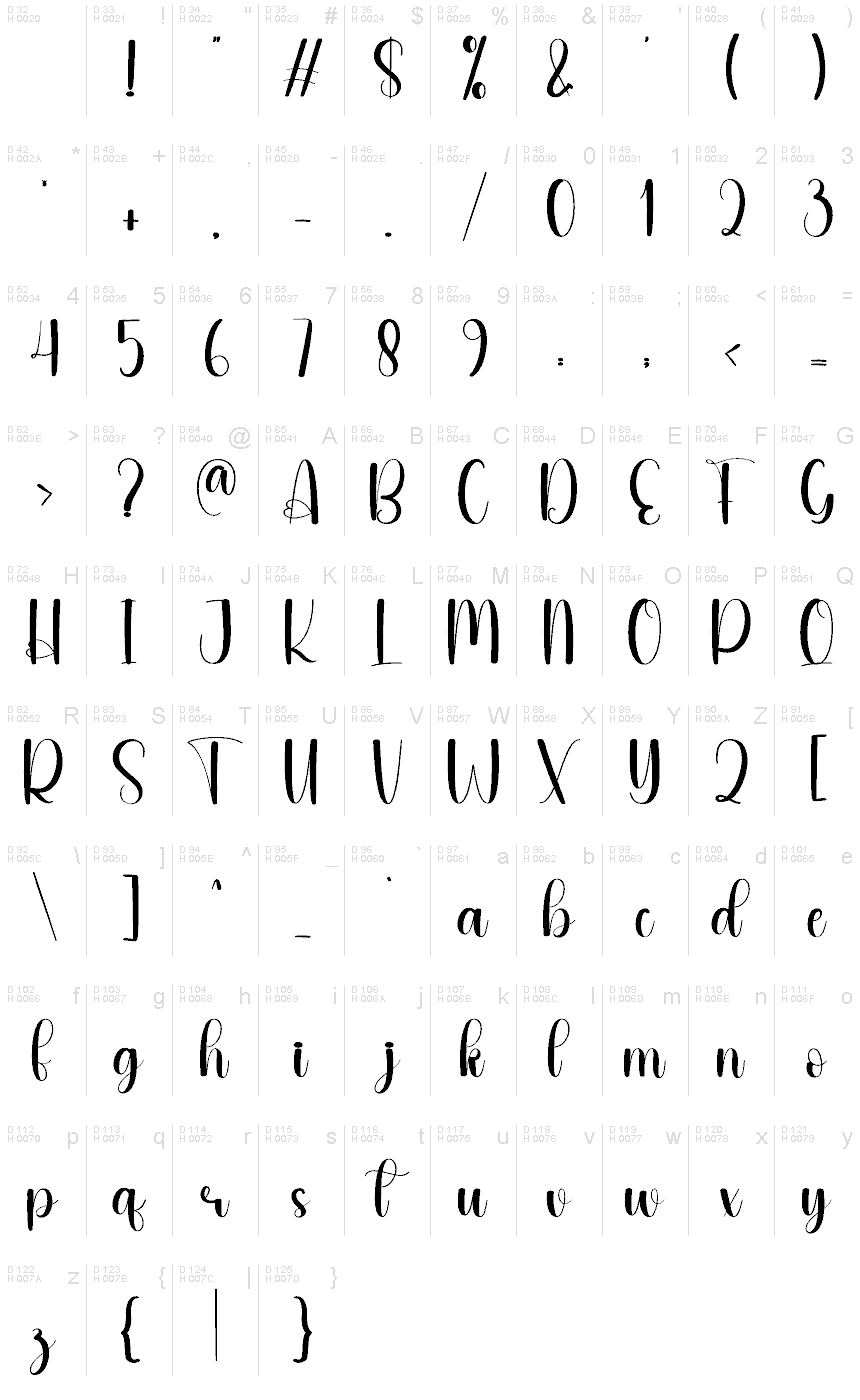
Churly
Churly font by Andi Moz is an elegant calligraphy typeface with expressive flair that will provide readers with a contemporary visual experience. This free-to-download script collection presents flowing lines and high contrast between thick and thin strokes for projects that deserve quality.
Deliver that quality both digitally and in print for headlines, logotypes, magazines, social media posts, branding designs, websites, product packaging projects and labels. Use it in advertising when searching for the perfect balance between modernity and tradition or share fresh takes with Churly’s stylish letters.